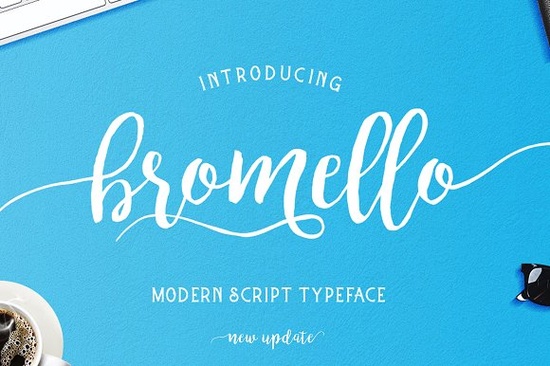
If you're looking for a modern script font that feels personal and handmade like something brushed onto paper with care Bromello Font fits naturally into your design workflow. It’s not overly ornate or fussy, but it carries warmth and intention. Designers use it for wedding stationery, small business logos, book covers, and even social media headers where a human touch matters. Because it was drawn by hand with a brush, each letter has subtle variation in weight and flow, giving it quiet authenticity not the rigid uniformity of many digital scripts.
When does Bromello work best?
Bromello shines in contexts where you want approachability without sacrificing polish. Think: a local bakery’s seasonal menu, a handmade soap brand’s product label, or an indie author’s paperback cover. It pairs well with clean sans-serifs (like Montserrat or Inter) for contrast, or with soft serif companions for layered elegance. Since it includes standard Latin characters, numbers, and basic punctuation, it’s practical for real-world use not just decorative accents.
It’s especially useful if you’re building a consistent visual identity across multiple touchpoints. For example, one craft business used Bromello for their logo and email headers, then switched to a neutral sans-serif for body text creating balance without visual fatigue. That kind of flexibility is why designers keep coming back to thoughtful script fonts like this one.
How does it compare to other hand-drawn options?
Not all brush scripts feel the same. Some lean playful, others formal. Bromello sits comfortably in the middle: relaxed enough for casual branding, refined enough for elegant invitations. If you’ve tried Relationship Font, you’ll notice Bromello has less bounce and more grounded rhythm. Compared to Handlettering Fonts Collection, it’s more singular in voice designed as one cohesive family rather than a set of stylistic variants. And while Mafuinka Font offers bolder contrast and sharper angles, Bromello leans into softer transitions and gentle curves.
For those who love delicate energy, Darling Charm Font shares some of Bromello’s lightness but Darling Charm leans more romantic and airy, while Bromello keeps a subtle structure that holds up at smaller sizes, like on product tags or website buttons.
What can you actually do with it?
You don’t need advanced typography knowledge to use Bromello well. Here’s what works:
- Wedding stationery: Save-the-dates, menus, and place cards especially when paired with muted tones or textured paper.
- Small business branding: Logos for boutiques, studios, or service-based solopreneurs who want to signal care and individuality.
- Print-on-demand products: Tote bags, mugs, and greeting cards where legibility and charm both matter.
- Digital use: Social graphics, Canva templates, or email headers just avoid using it below 16px for body copy.
Where to find similar fonts and why variety helps
That said, don’t feel pressured to collect dozens of scripts. Start with one that fits your style and use case, like Bromello, and learn how it behaves across formats and sizes. You’ll build confidence faster than by stockpiling fonts you rarely open.
- ✅ Test it at different sizes: large for headlines, medium for quotes or short labels, and avoid tiny uses unless testing first.